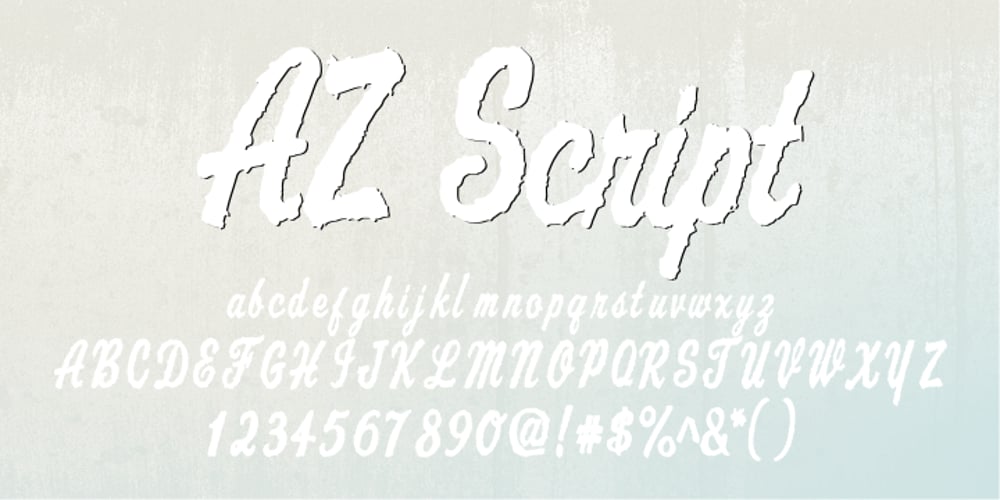
AZ Script
AZ Script font
AZ Script Font Family was designed by published by Artist of Design. AZ Script contains 1 styles and family package options. AZ Script font was inspired from a need to have a “worn look” on bold headline script of letters This font utilizes an “old look” to the line work which is designed to have a “worn feel” to it. Ideal for use as headline or sub-head text in you design.